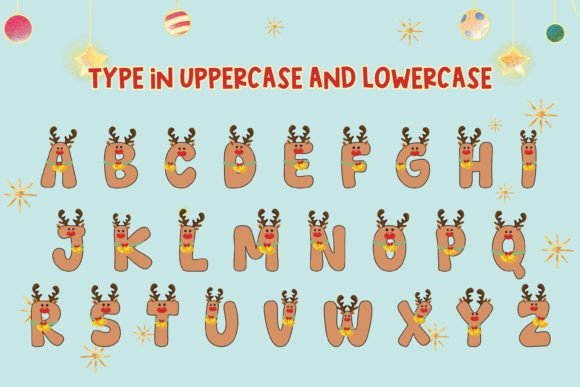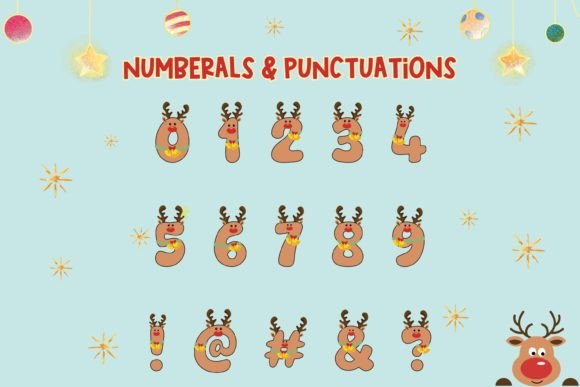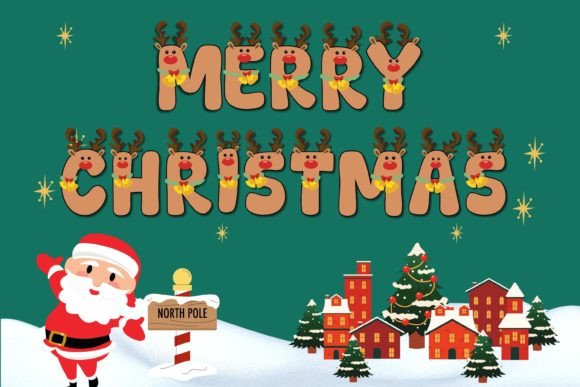
Introducing Christmas Rudolph: A Magical Color Font for Your Holiday Designs
Are you looking for a font that can add a touch of magic to your Christmas-themed designs? Look no further than Christmas Rudolph, a vivid and playful color font that’s perfect for bringing enchantment to your holiday projects. In this article, we’ll take a closer look at this amazing font and explore its features, benefits, and uses.
A Font that Embodies the Spirit of Christmas
Christmas Rudolph is a color font that effortlessly melds with various Christmas-themed designs, making it an ideal choice for designers and crafters. Its captivating character is perfect for creating mesmerizing masterpieces that will leave a lasting impression on your audience. Whether you’re working on t-shirt designs, digital imprints, craft creations, decorative cards, or extensive projects, Christmas Rudolph is the perfect companion to help you bring your ideas to life.
Christmas Rudolph is a versatile font that can be used in a wide range of design applications, including:
• T-shirt designs: Create eye-catching and festive t-shirt designs that will make your customers smile.
• Digital imprints: Add a touch of magic to your digital imprints, such as social media graphics, email templates, and more.
• Craft creations: Use Christmas Rudolph to create beautiful and unique craft projects, such as handmade cards, gift tags, and decorations.
• Decorative cards: Design stunning decorative cards that will make your loved ones feel special during the holiday season.
• Extensive projects: Use Christmas Rudolph in larger projects, such as brochures, flyers, and posters, to add a touch of festive flair.
Why Choose Christmas Rudolph?
So, why should you choose Christmas Rudolph for your holiday designs? Here are just a few reasons:
• Unique and playful design: Christmas Rudolph has a captivating character that’s sure to stand out in your designs.
• Versatile: Christmas Rudolph can be used in a wide range of design applications, making it a great addition to your font library.
Christmas Rudolph is a magical color font that’s perfect for adding a touch of enchantment to your holiday designs. With its captivating character, convenient formats, and additional files, it’s an ideal choice for designers and crafters. Whether you’re working on t-shirt designs, digital imprints, craft creations, decorative cards, or extensive projects, Christmas Rudolph is sure to bring your designs to life. Experience the magic of Christmas Rudolph and transform your designs into mesmerizing masterpieces.